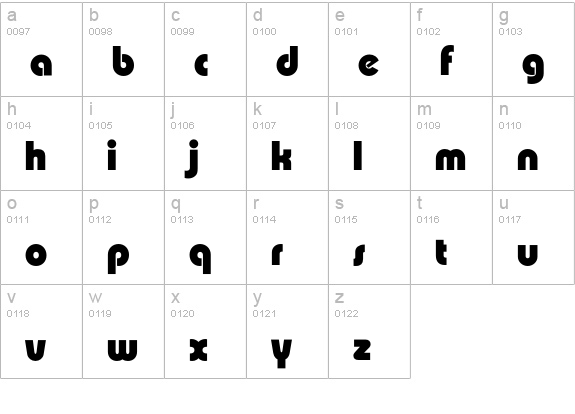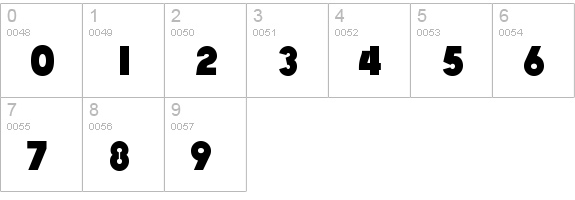
Expressa-Heavy Font Details
Expressa-Heavy is a heavy, high-impact variant in the Expressa typeface family \xE2\x80\x94 well suited to high-impact headlines, posters, and display advertising.
Expressa-Heavy is a bold and striking display font that commands attention with its strong and powerful presence. The thick strokes and sharp angles give this font a modern and dynamic feel, making it perfect for headlines, posters, and other eye-catching designs. Its versatility allows it to be used in various design projects, from branding to packaging to advertising. What makes Expressa-Heavy even more appealing is that it is available for free download at FontsMarket.com. This means that you can easily access this high-quality font and incorporate it into your projects without any cost. With Expressa-Heavy, you can make a bold statement and stand out from the crowd, all while enjoying the convenience of a free and easily accessible font.